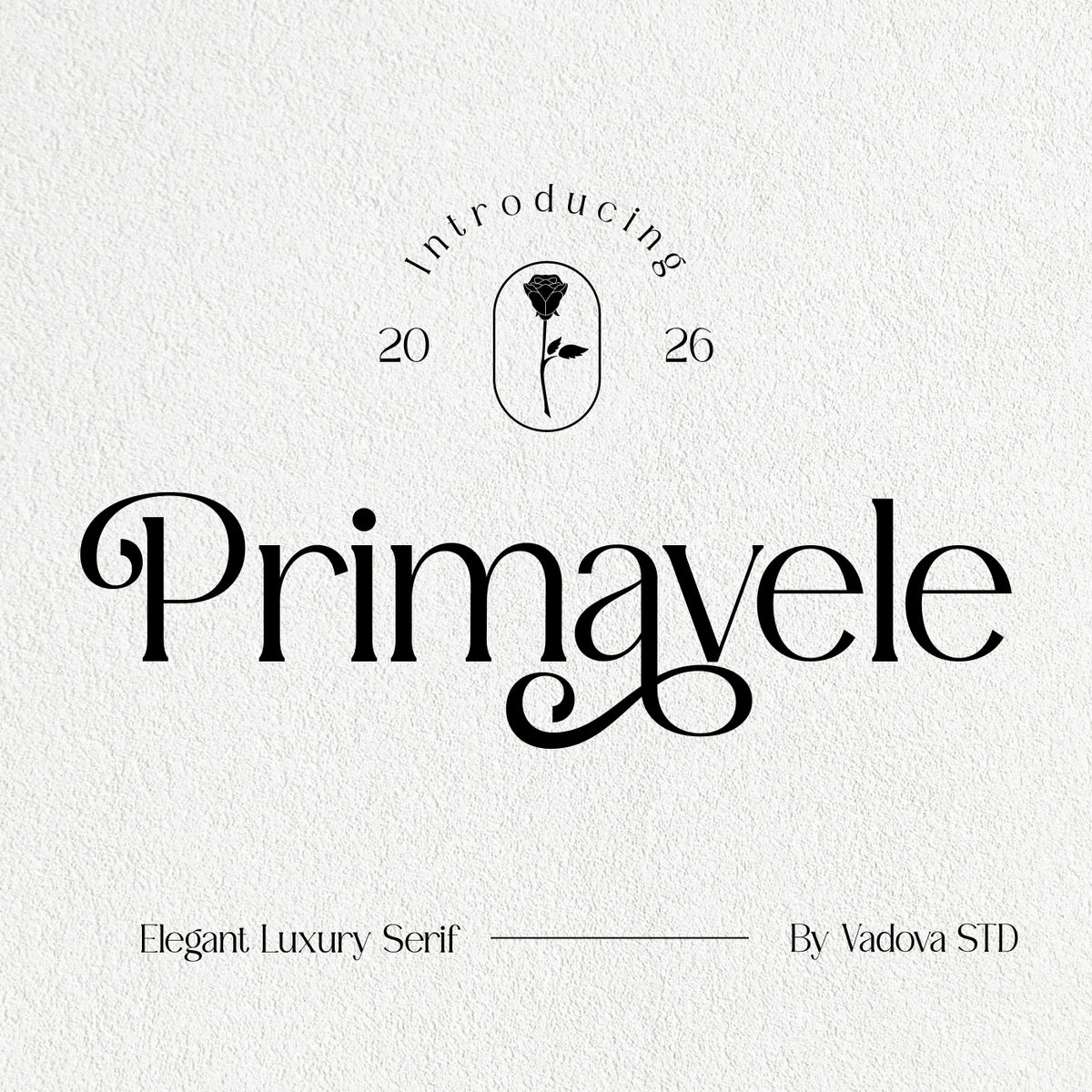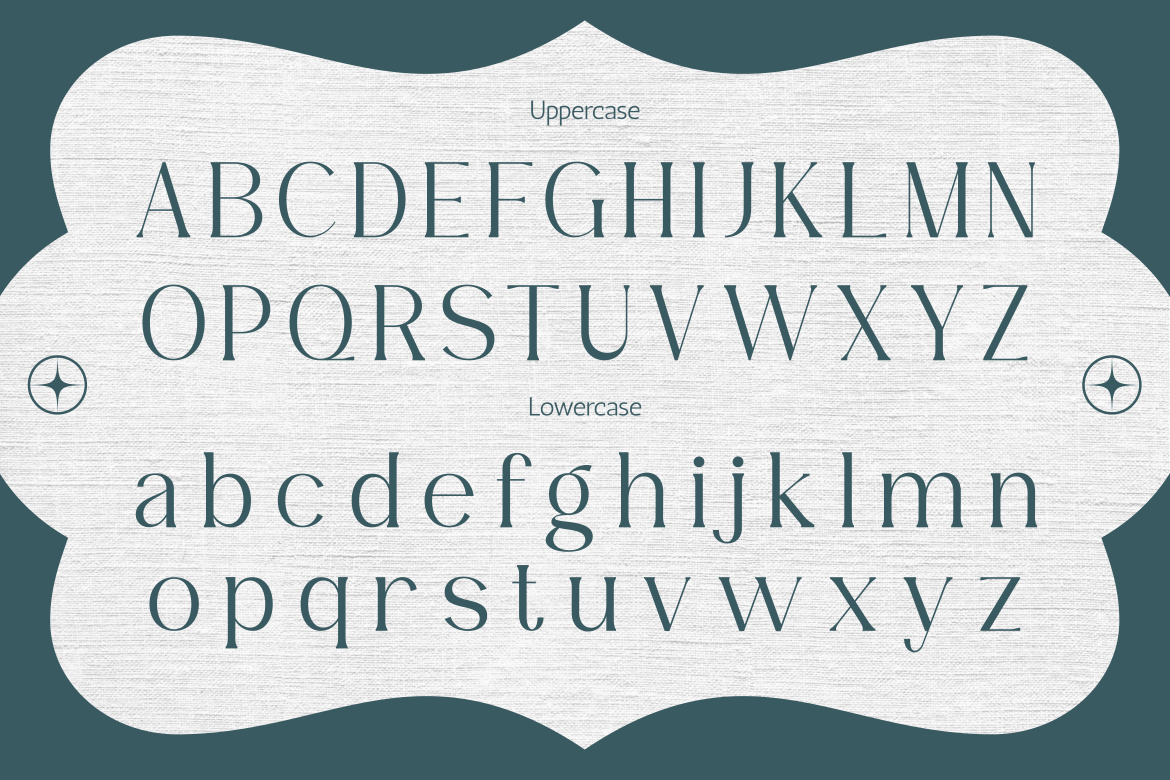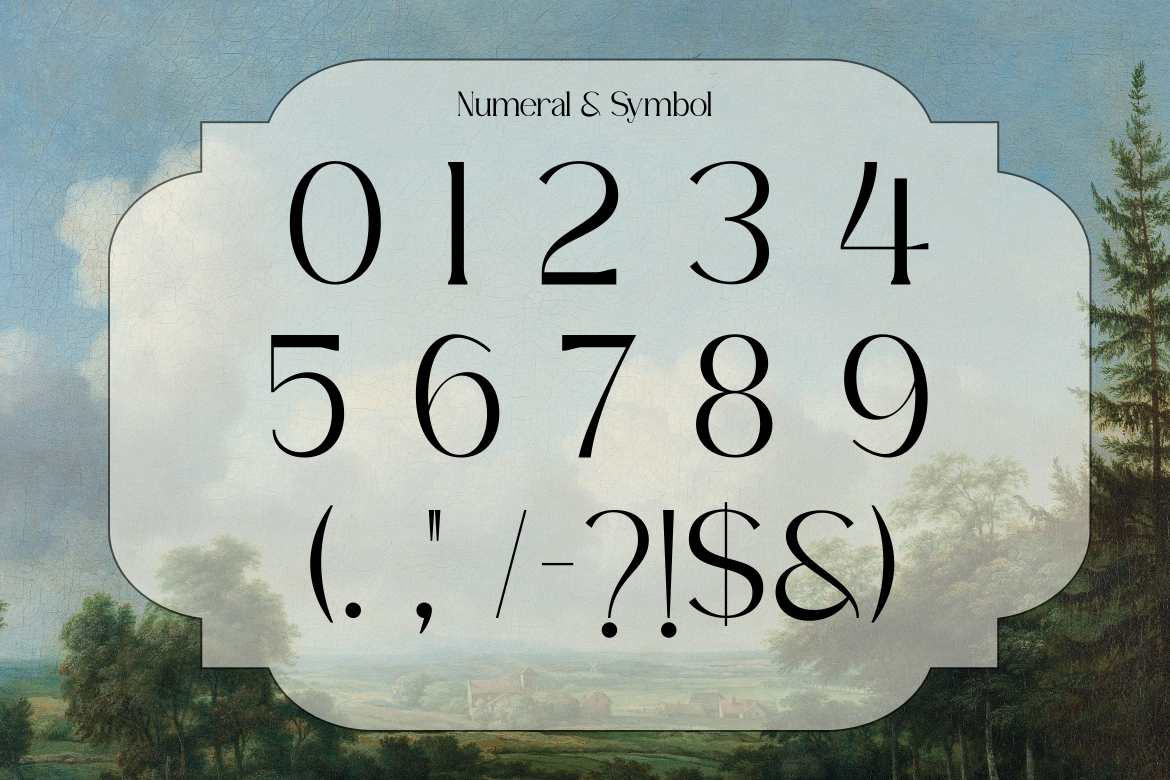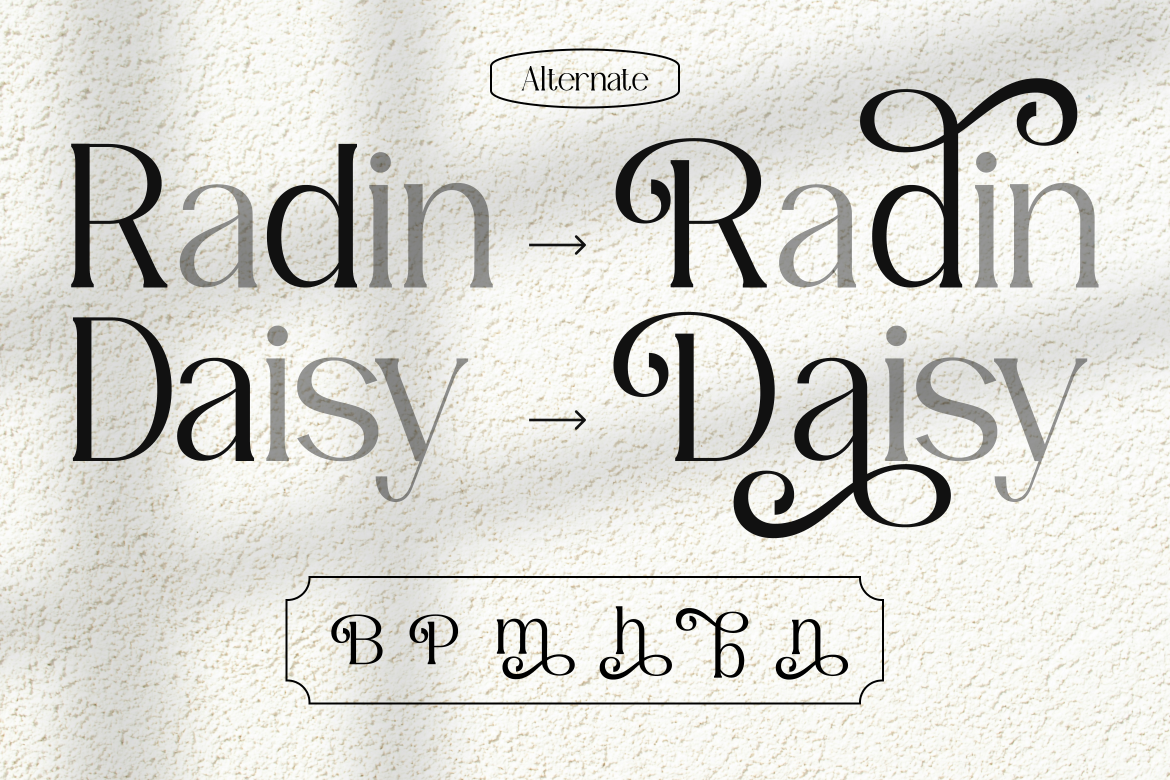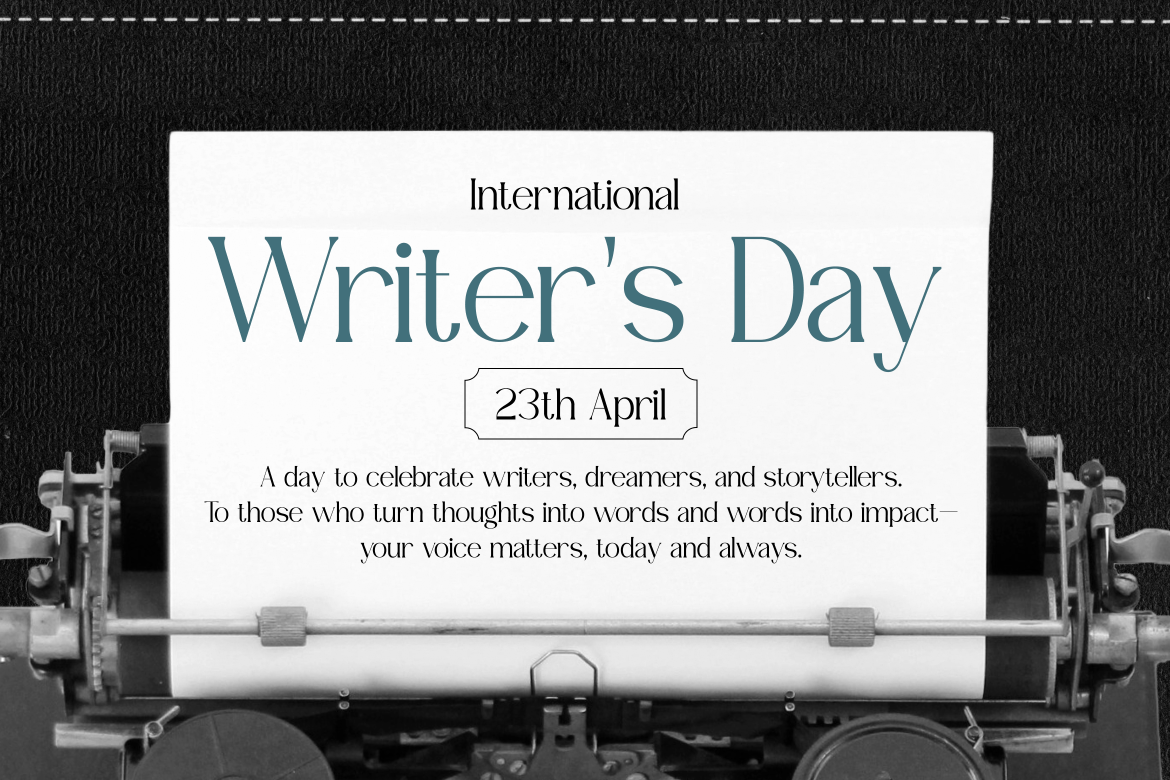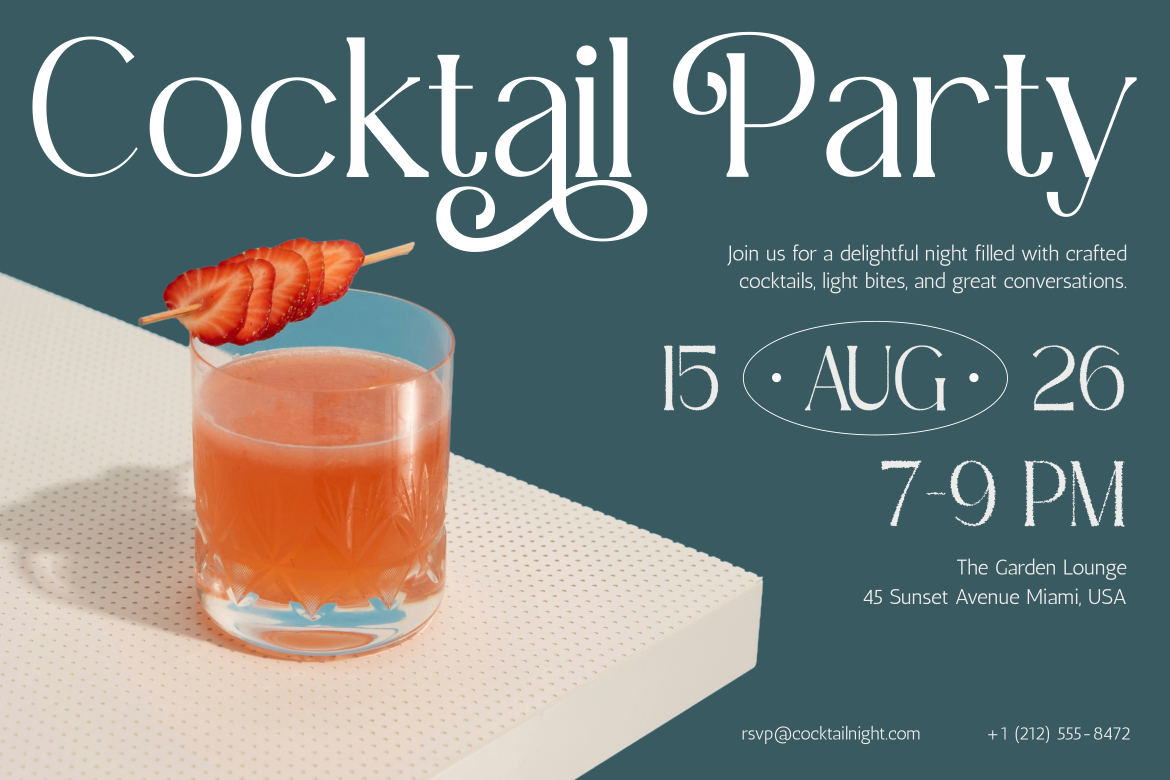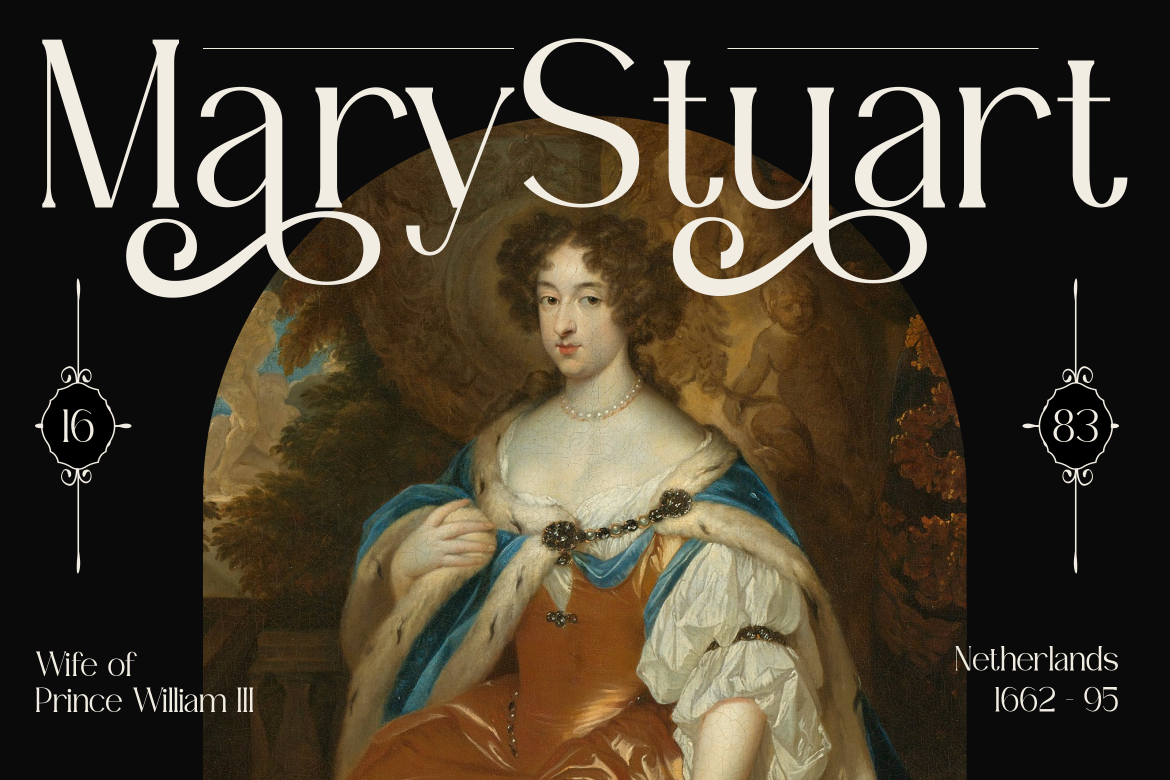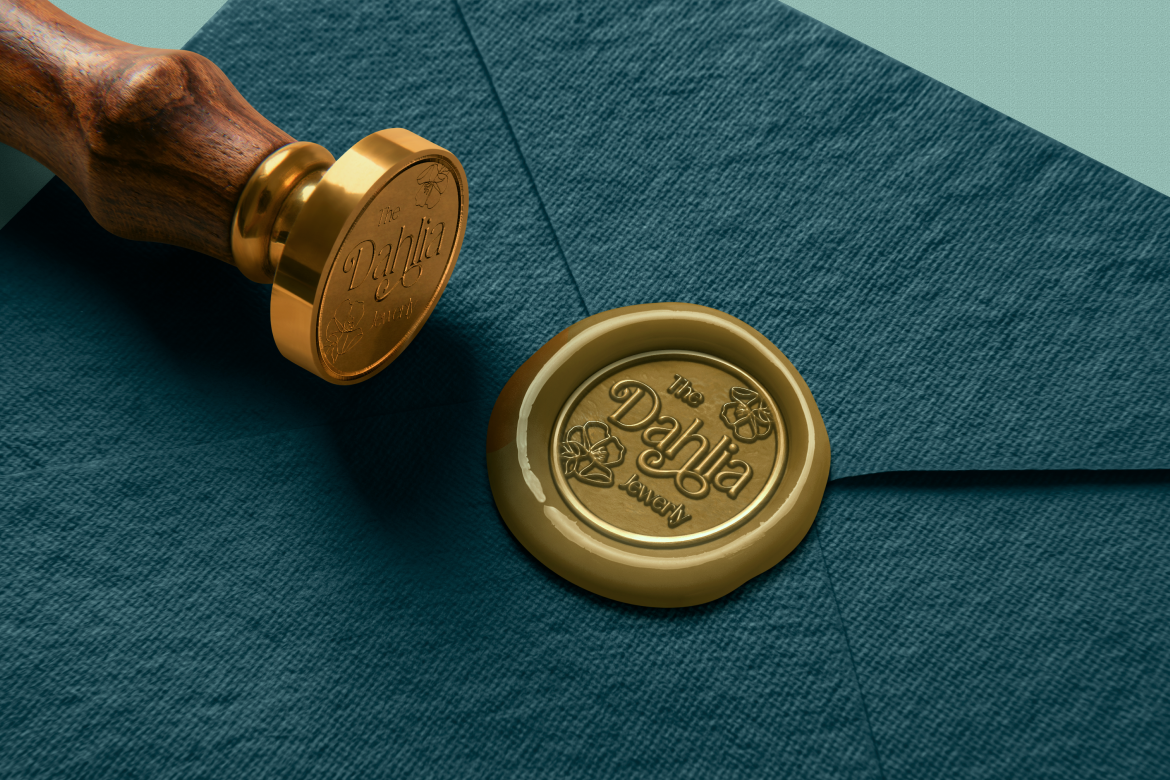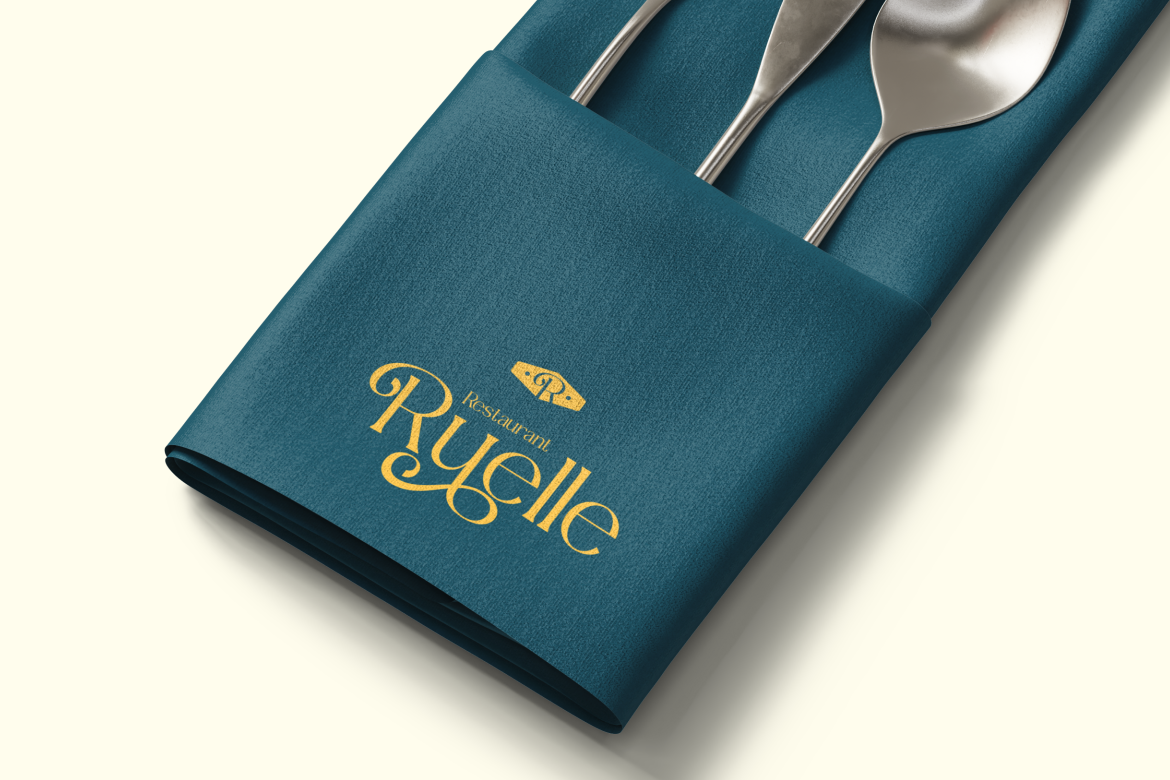
Primavele Elegant Luxury Serif Font
Primavele Luxury Serif Font is a refined display typeface that combines high-contrast serif construction with graceful curves and distinctive ornamental swashes. Inspired by luxury editorials and contemporary fashion branding, the typeface delivers an expressive visual presence that feels both timeless and sophisticated. The letterforms feature slender stems, elegant stroke transitions, elongated proportions, and decorative terminals that create a harmonious rhythm across headlines and logo compositions.
Subtle calligraphic influences and carefully crafted character details give the typeface an artistic personality, while the flowing swashes and balanced proportions add refinement without sacrificing readability. Designed for premium visual communication, Primayele includes uppercase and lowercase characters, numerals, punctuation, symbols, and OpenType features. Its luxurious structure performs beautifully in large display settings, making it suitable for fashion branding, beauty packaging, magazine covers, wedding stationery, luxury logos, boutique identities, invitations, and high-end digital presentations.
Standard Alternates
Primavele Elegant Luxury Serif Font is a high-contrast display typeface featuring slender stems, elongated proportions, decorative terminals, and ornamental swashes. It includes uppercase and lowercase characters, numerals, punctuation, standard alternates, and OpenType features, available in OTF, TTF, and WOFF formats.